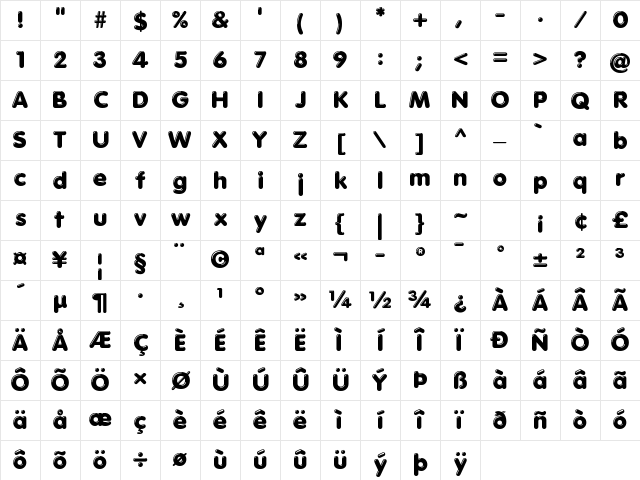
VAG Rounded Next Shine Regular
Foundry: Monotype GmbH
Designer: Monotype Design Studio
Design Context for VAG Rounded Next Shine
VAG Rounded Next Shine softens its letterforms with rounded terminals, giving it an approachable, friendly quality that works well in consumer-facing and digital contexts.
Font Pairing: Pairs well with a rounded or humanist sans for body copy, maintaining the friendly tone without relying on VAG Rounded Next Shine to carry extended reading.
Pro Tip: Use VAG Rounded Next Shine for UI elements, app interfaces, and anywhere a friendly, approachable tone needs to be maintained without sacrificing clarity.